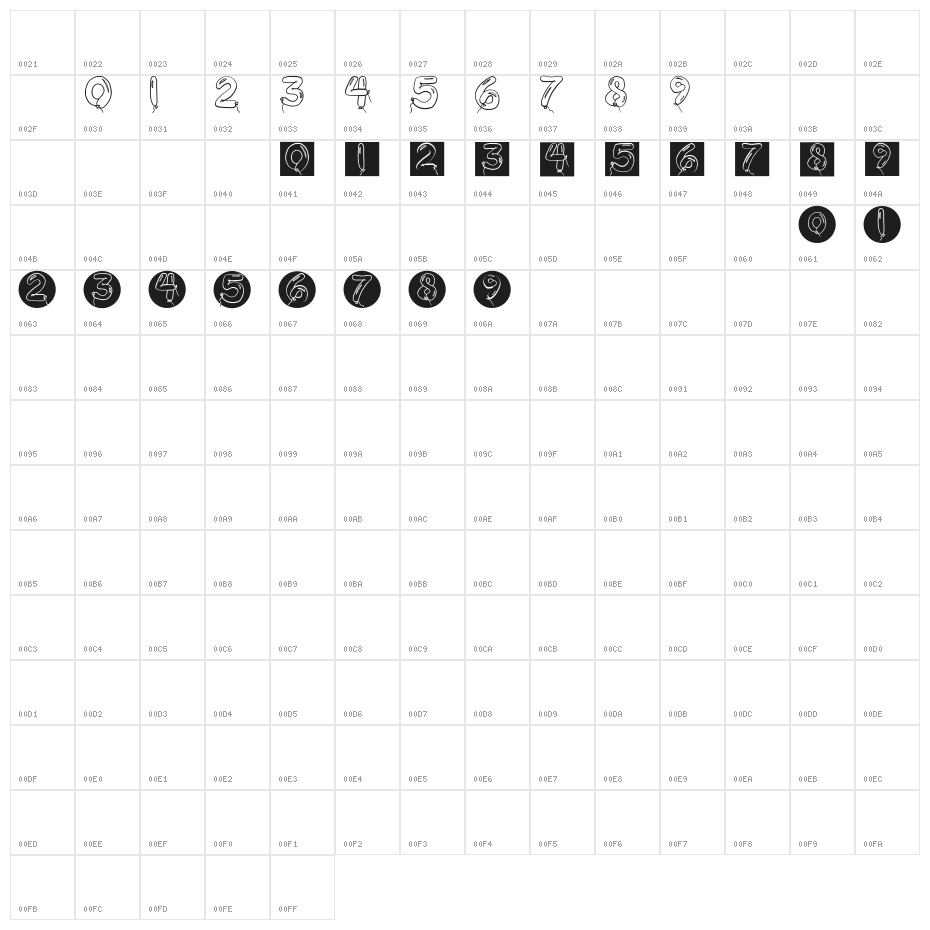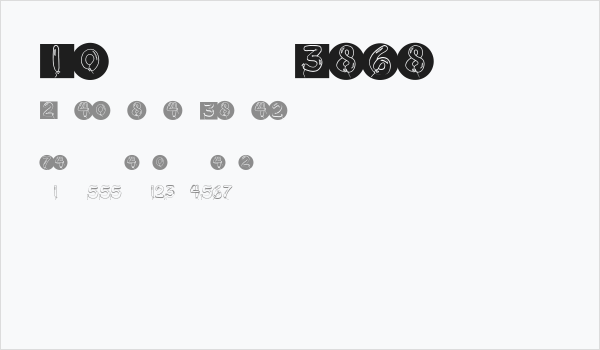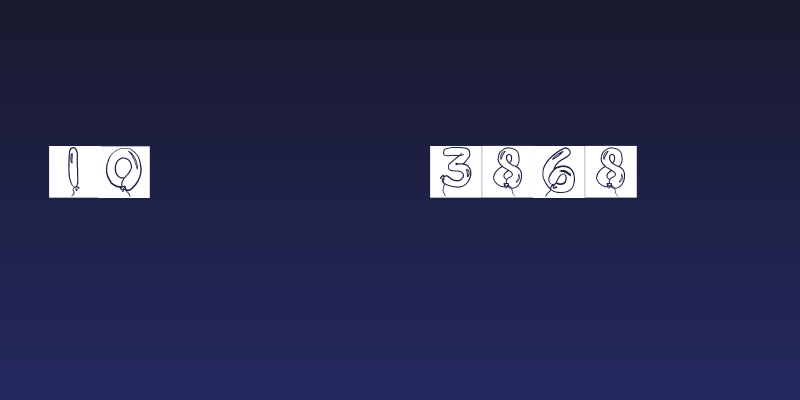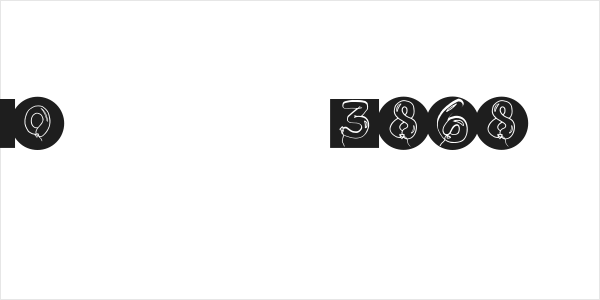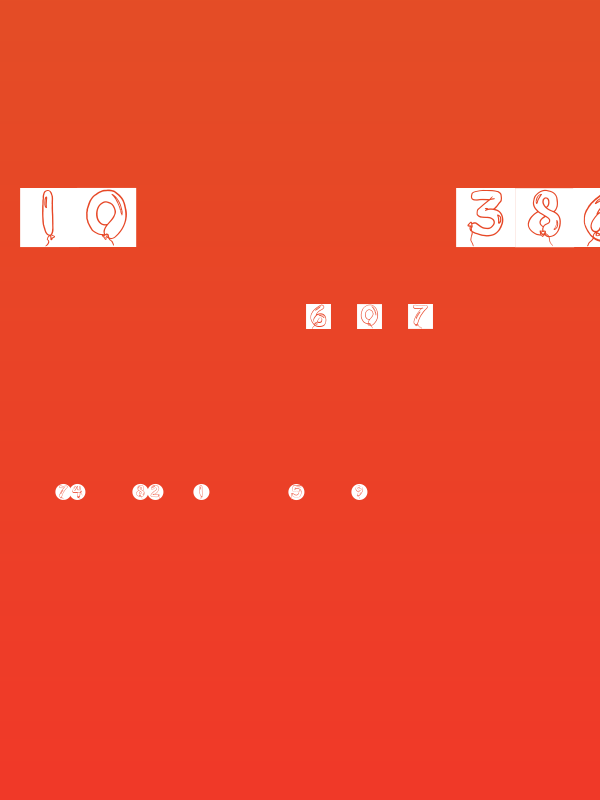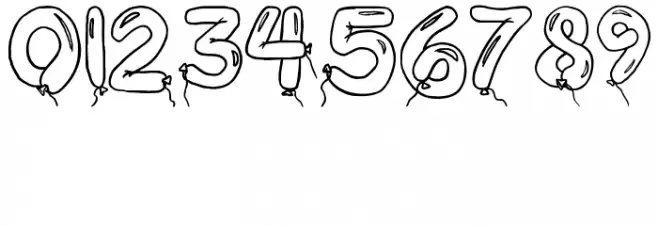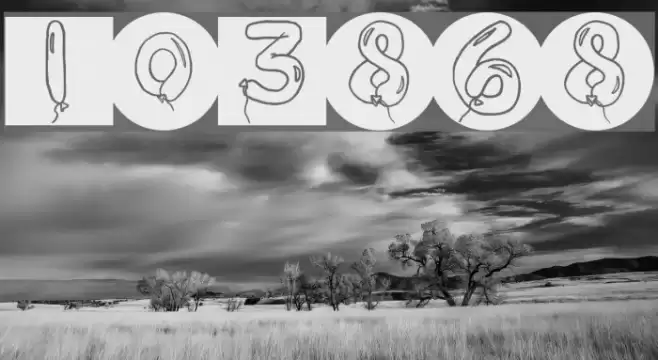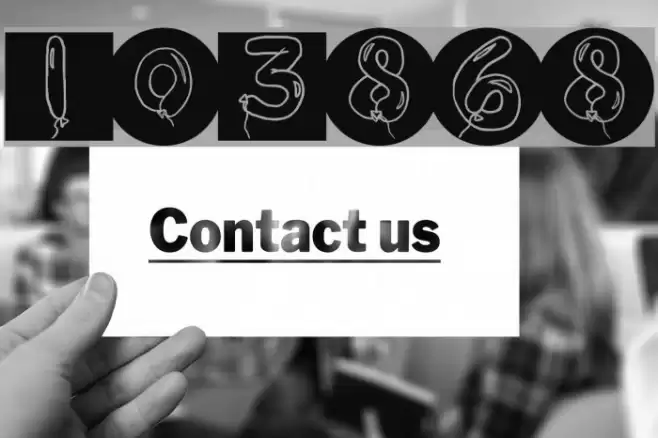
BalloonDigits Font
BalloonDigits Description
This playful and whimsical font features numbers designed to resemble inflated balloons. Each digit is crafted with a rounded, voluminous appearance, complete with highlights and shadows that mimic the reflective surface of real balloons. The numbers are slightly irregular, adding to the playful and informal aesthetic. The font is ideal for conveying a sense of fun and celebration, making it perfect for party invitations, children's events, or any project that requires a lighthearted touch. The design is consistent across all digits, maintaining a uniform style that ensures readability while still capturing the essence of balloons.
| Proposed Projects | Ideal for birthday invitations, children's party decorations, playful branding, or any celebratory event materials. |